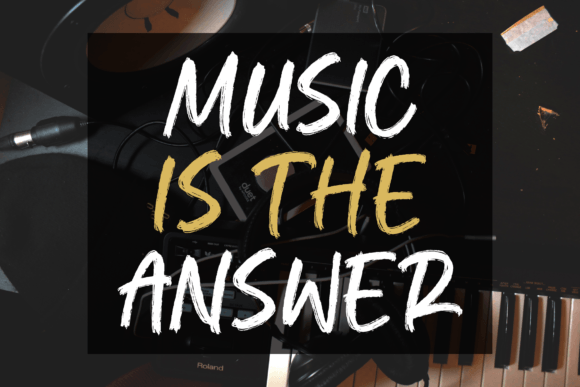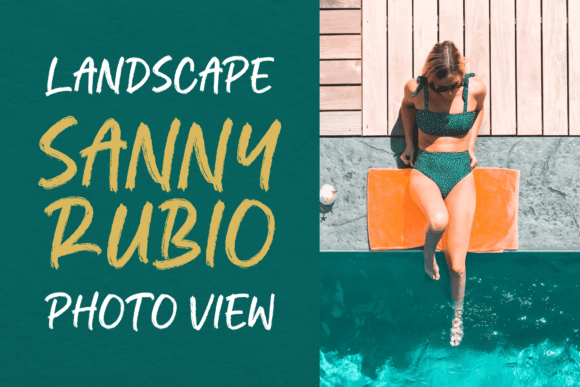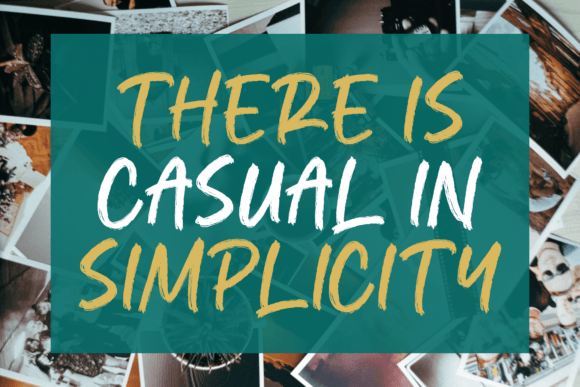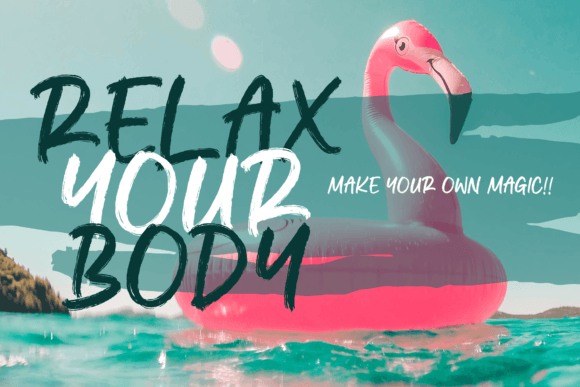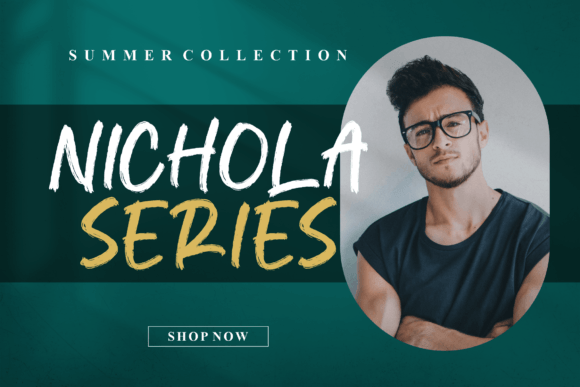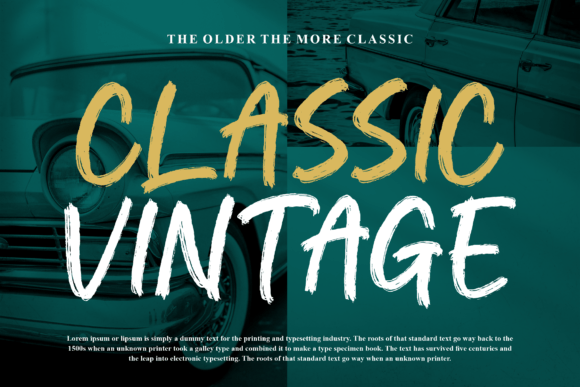
Introduction to Moltres Font
Moltres – Brush Typeface Font suitable for any projects such as logos, branding projects, homeware designs, product packaging, mugs, quotes, posters, shopping bags, t-shirts, book covers, name cards, invitation cards, greeting cards, label, photography, watermark, special events, and all your other lovely projects that need a beautiful handwritten taste.
Key Features of Moltres Font
Why Choose Moltres Font?
Moltres Font offers exceptional quality and versatility, making it a valuable addition to your design toolkit. Whether you’re creating for personal projects or commercial use, Moltres Font delivers professional results.